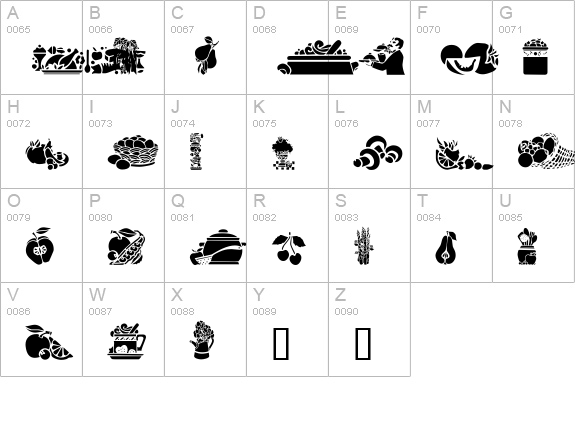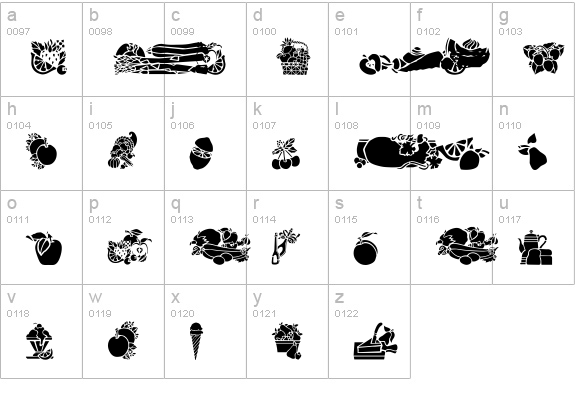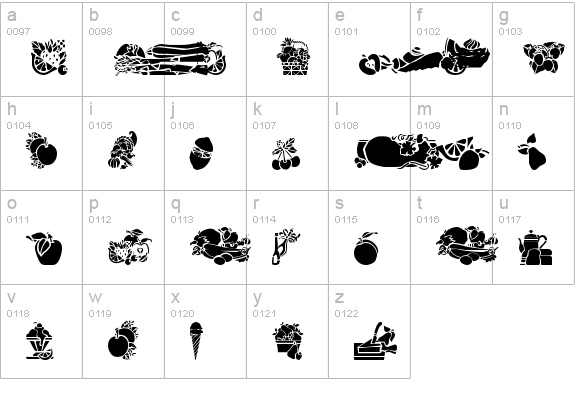
GE Edibles Font Details
Introducing GE Edibles font, a delightful and playful typeface perfect for adding a touch of whimsy to your designs. Crafted with attention to detail, this font features charming curves and elegant lines that will bring a sense of fun and creativity to any project. Whether you're working on a logo, branding, packaging, or any other design project, GE Edibles font is sure to make a lasting impression. Its versatility makes it suitable for a wide range of applications, from children's books to food packaging to event invitations. And the best part? GE Edibles font is absolutely free to download at FontsMarket.com. So go ahead and give your designs a fresh and playful look with this fantastic font today!